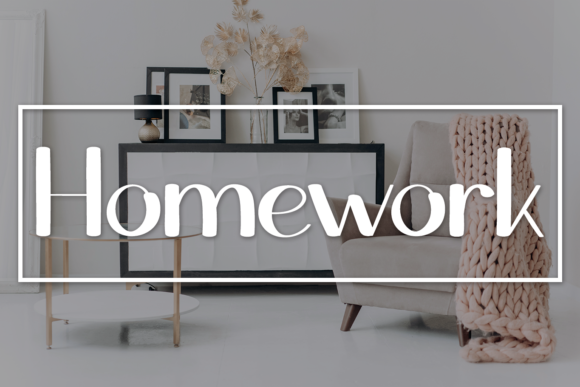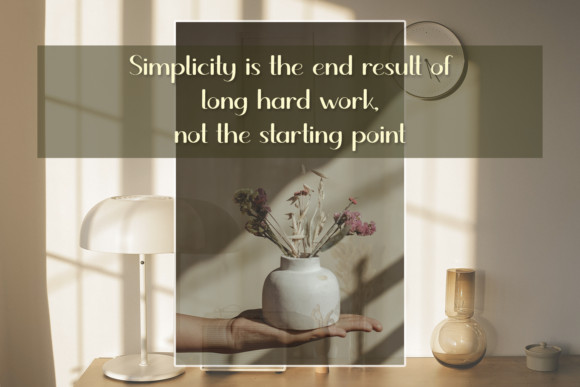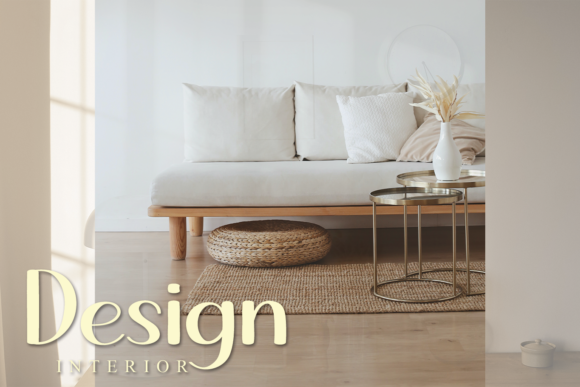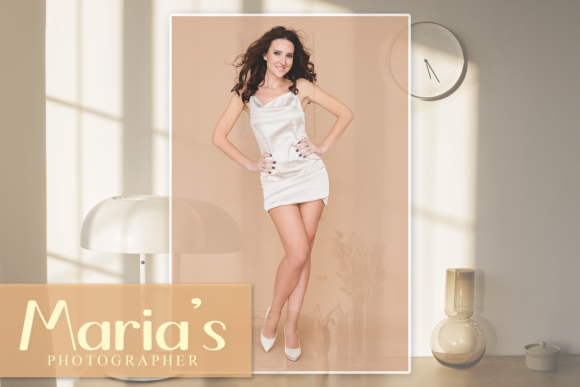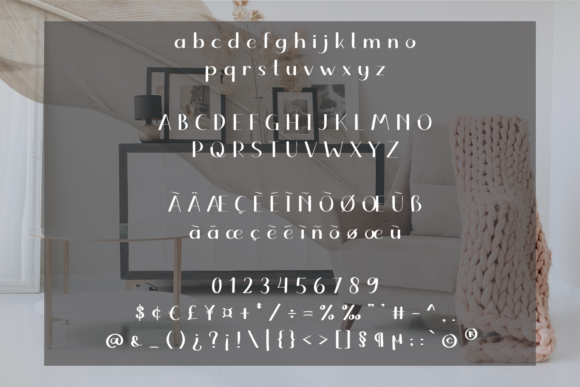
Homework Font
About Homework Font
Homework is a simple, clean and adaptable handwritten font. Its casual vibe will make this font a go-to choice for each of the creations that require a relaxed touch.